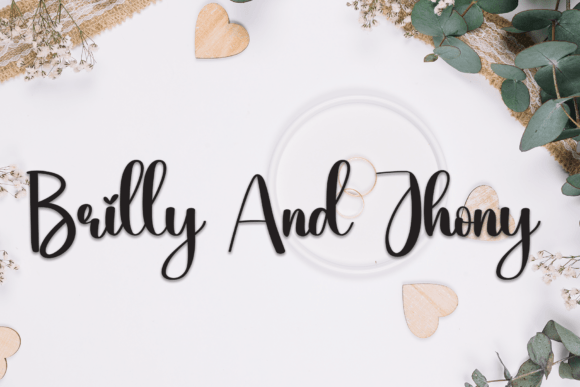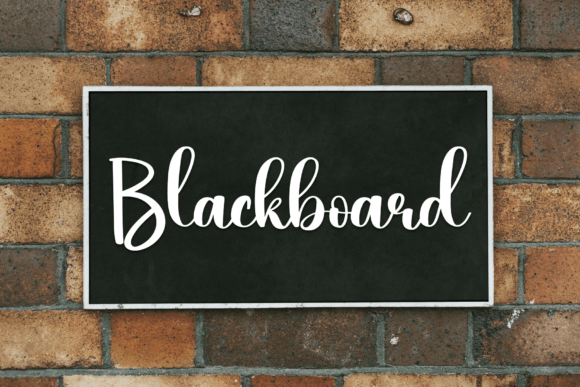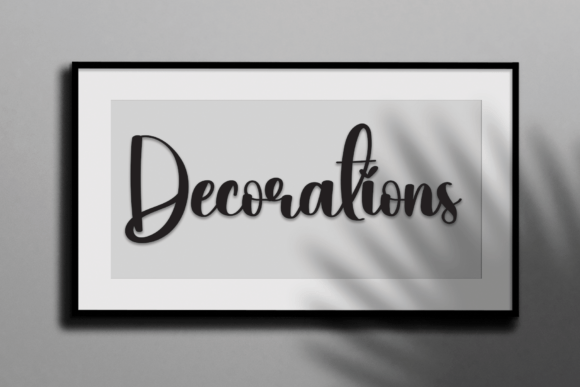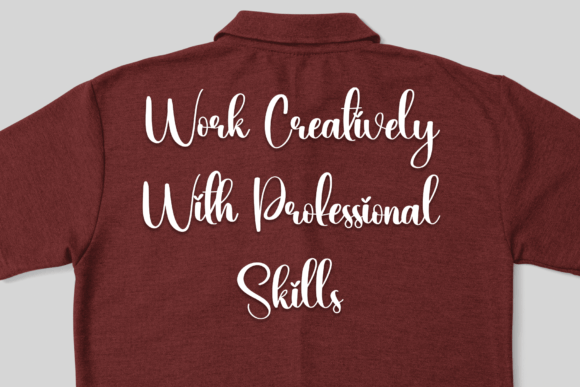
About Write Font
Write Font is a romantic handwritten typeface that combines elegance with a contemporary touch. It’s designed for creators who want to bring warmth, charm, and personality to their visual projects. Whether you’re designing social media content, personal stationery, or wedding invitations, this font offers the perfect balance of beauty and versatility.
Thanks to its modern curves and smooth flow, Write Font immediately captures attention. In fact, it works well in both formal and casual contexts. Not only does it add a handcrafted feel, but it also provides clean, readable letterforms that remain stylish and practical.
Where to Use Write Font
This font is a great choice for a wide range of design needs. It fits beautifully in:
Wedding invitations and save-the-dates
Branding and logo design
Social media graphics
Product packaging and labels
Event signage
Greeting cards
Photography watermarks
Handmade or artisan product designs
Because it carries a personal yet polished vibe, Write Font is often chosen by designers who want to combine softness with sophistication.
Design Features That Make It Shine
The font includes modern handwritten lettering with smooth transitions, giving your projects a natural look. Also, it maintains excellent readability, even in smaller sizes. Write Font is PUA encoded, so you’ll have easy access to all alternate characters and swashes without needing extra software.
Its unique flow and consistent line weight allow it to stand alone as a display font or work harmoniously alongside serif or sans-serif fonts.